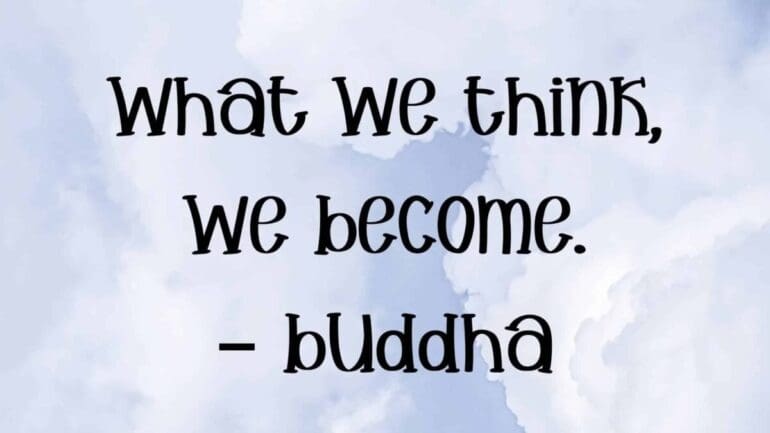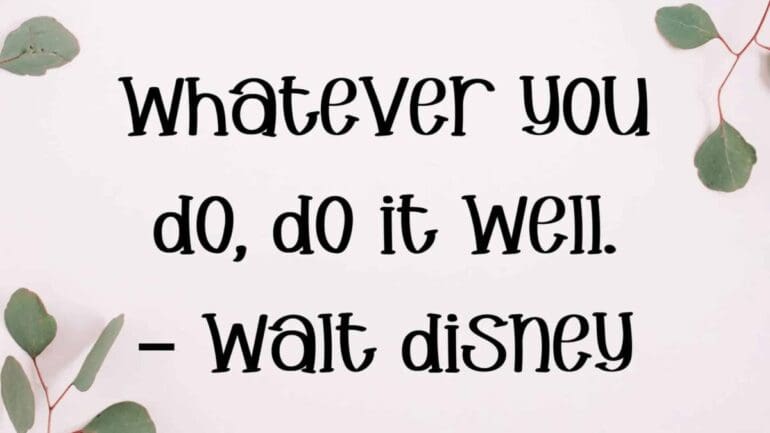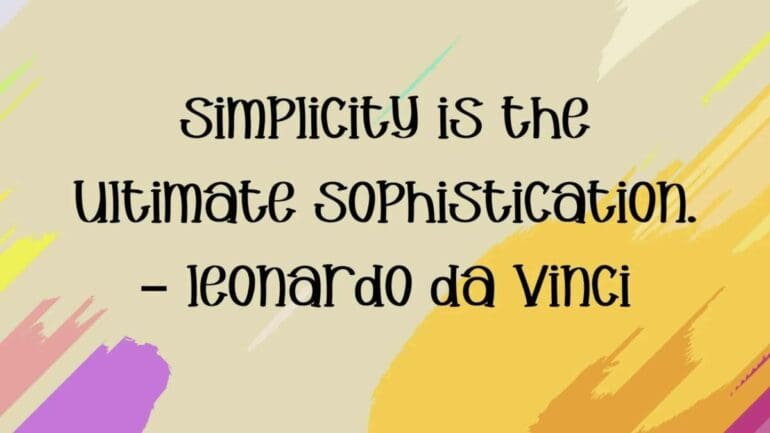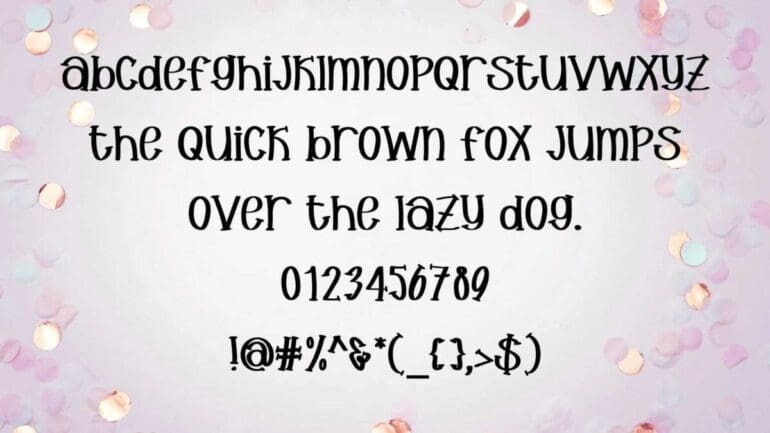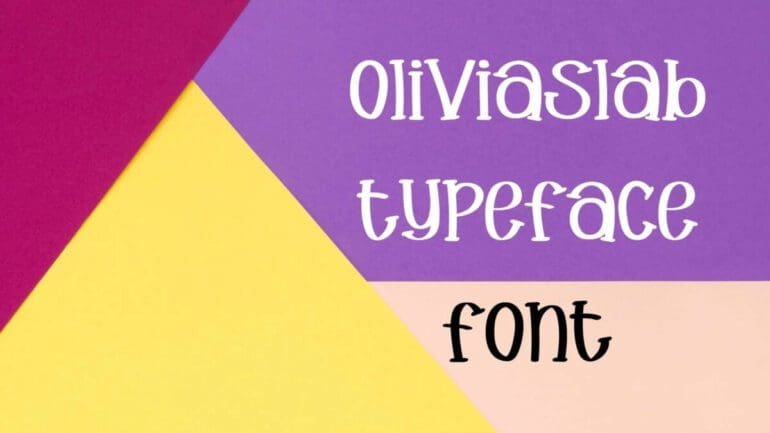
Olivia Slab Font
Olivia Slab Font is a delightful typeface that belongs to the fancy family, its characters have slab texture with some fancy appearance. The font style is designed in a unique way because it provides playful and fancy influence at the same time.